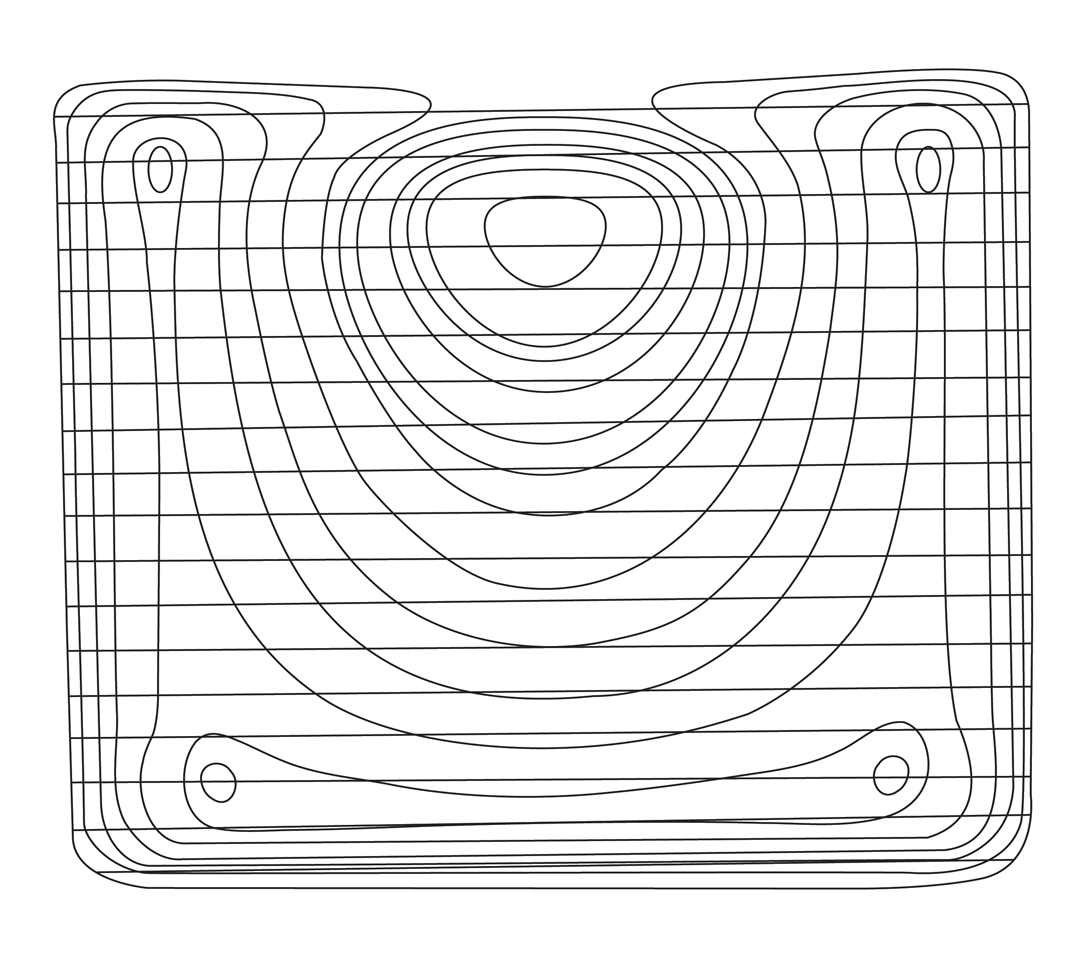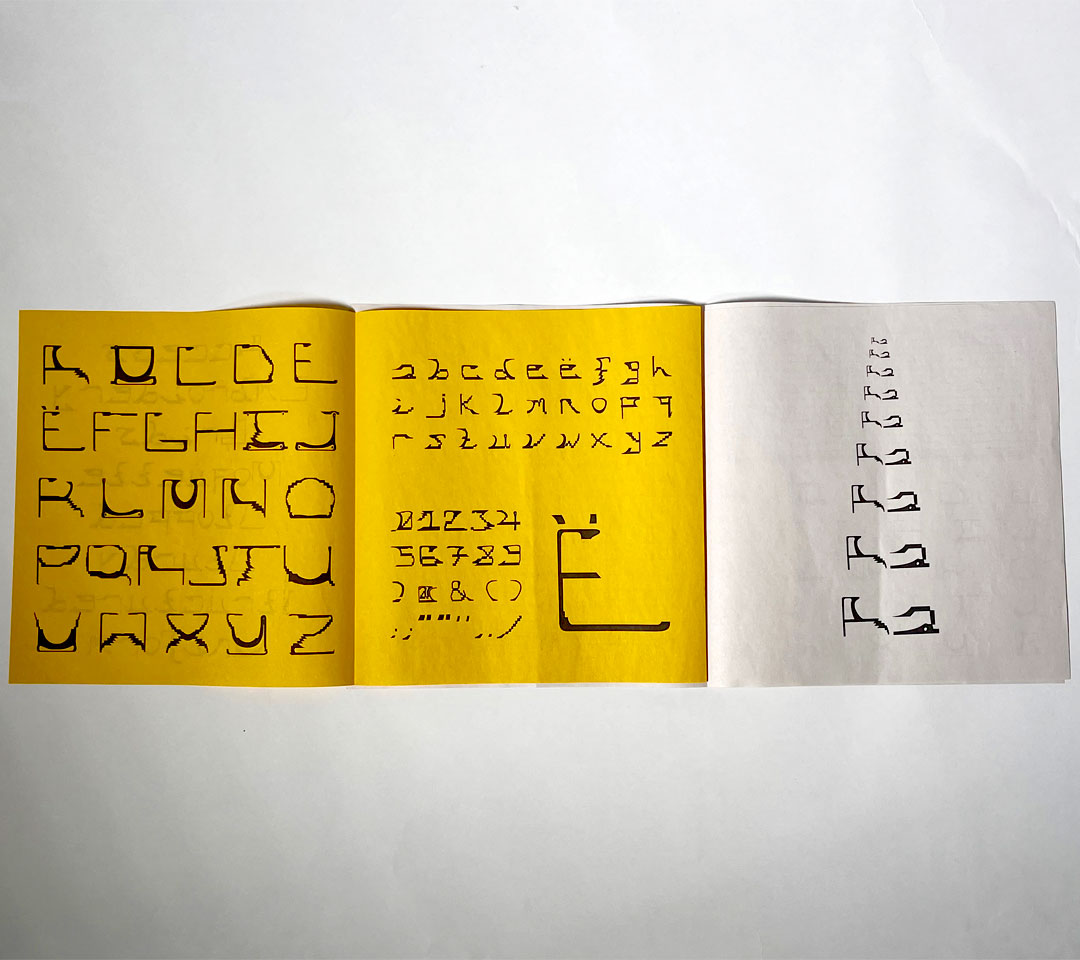
My display typeface 'Stopped' is inspired by Camberwell Bus Garage. It draws inspiration from the sturdy metal structures (in and around the garage), the embroidery on bus seats and my first visit there where I experienced the lack of access to the site. I was drawn to the seat pattern of the 68 bus, so I found its moquette. I then traced it and used it as a grid to make a matrix typeface. To make the typeface as cohesive as possible, I repeated curves and thicknesses in certain parts of letters and made the letters mono spaced.